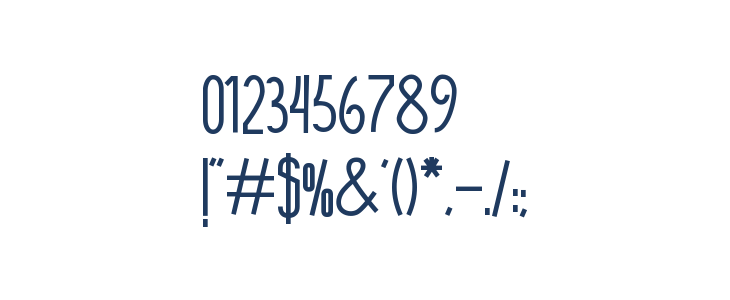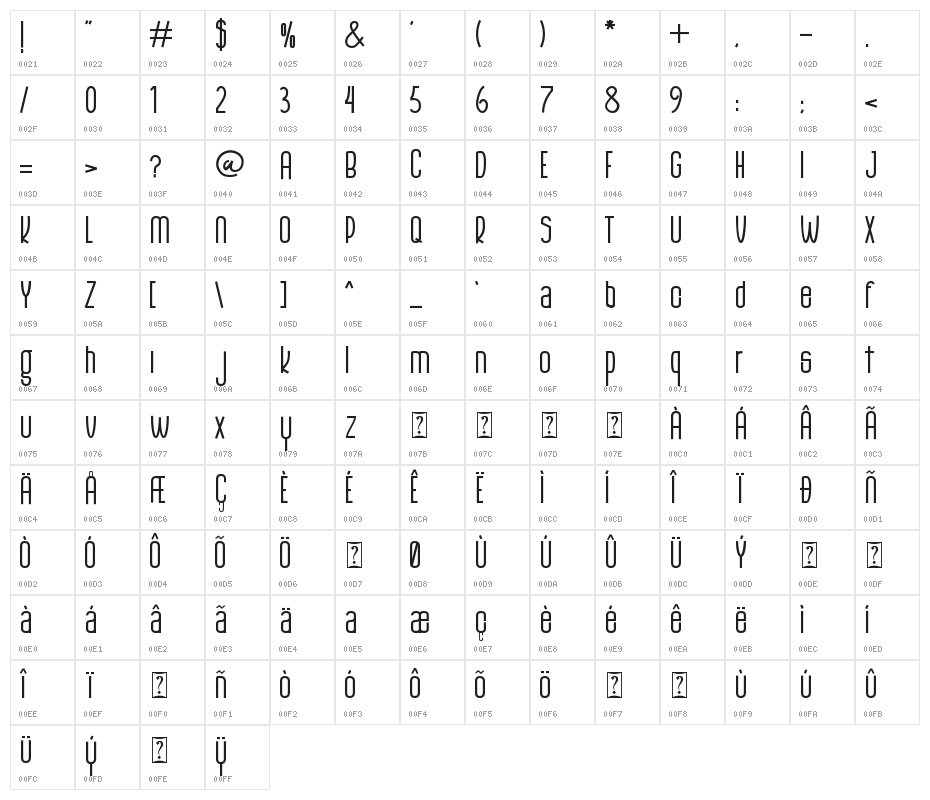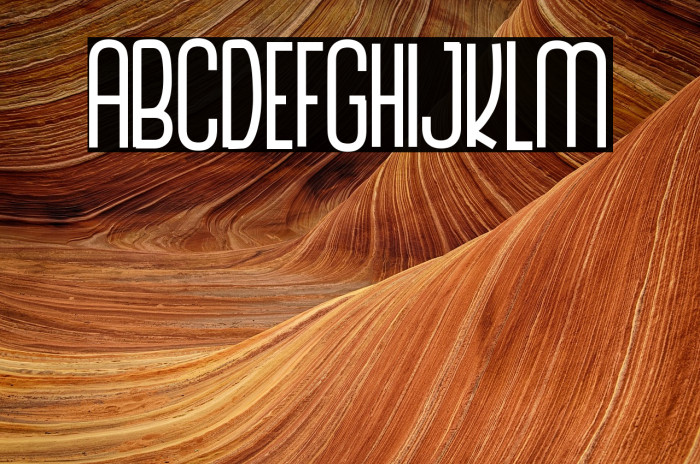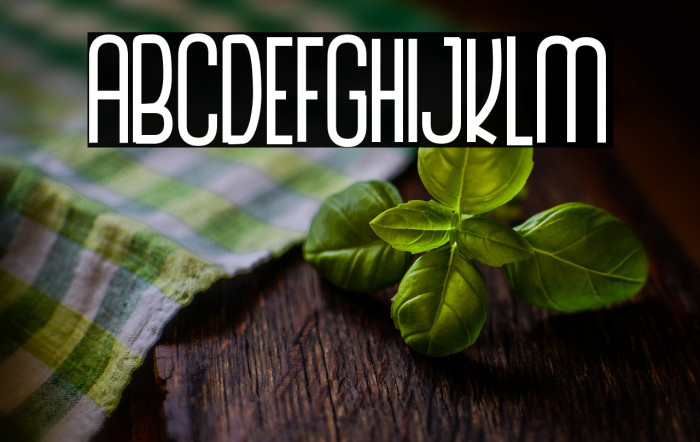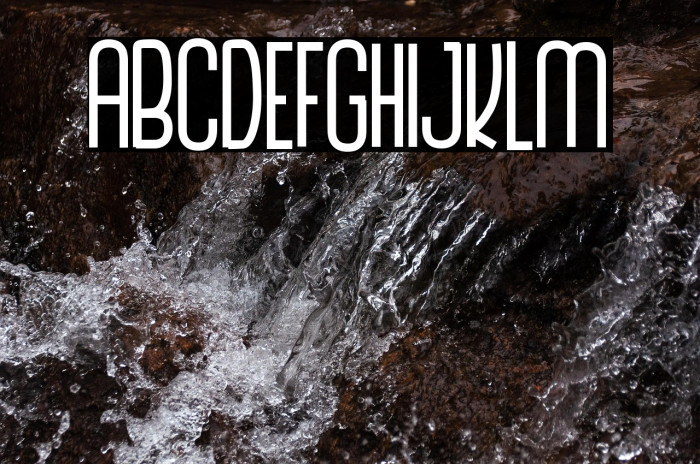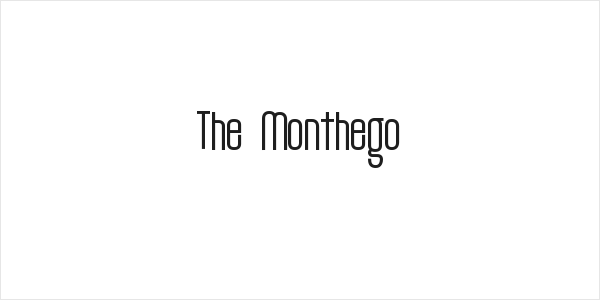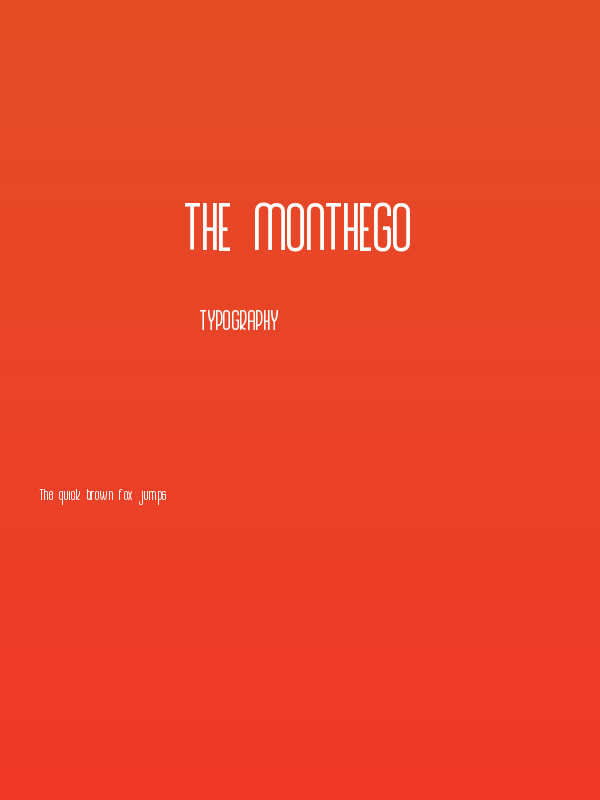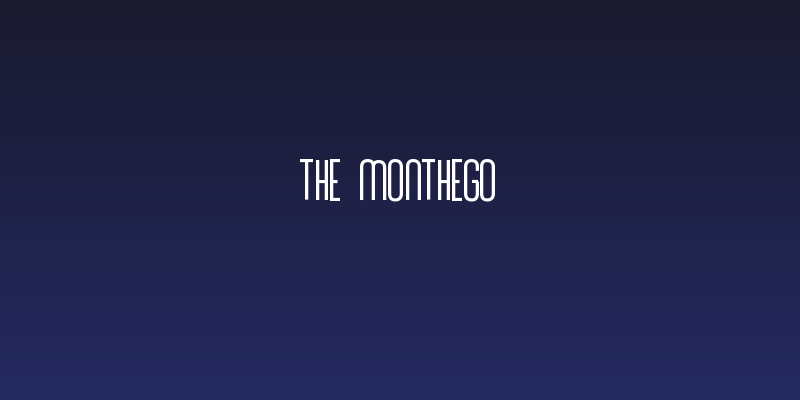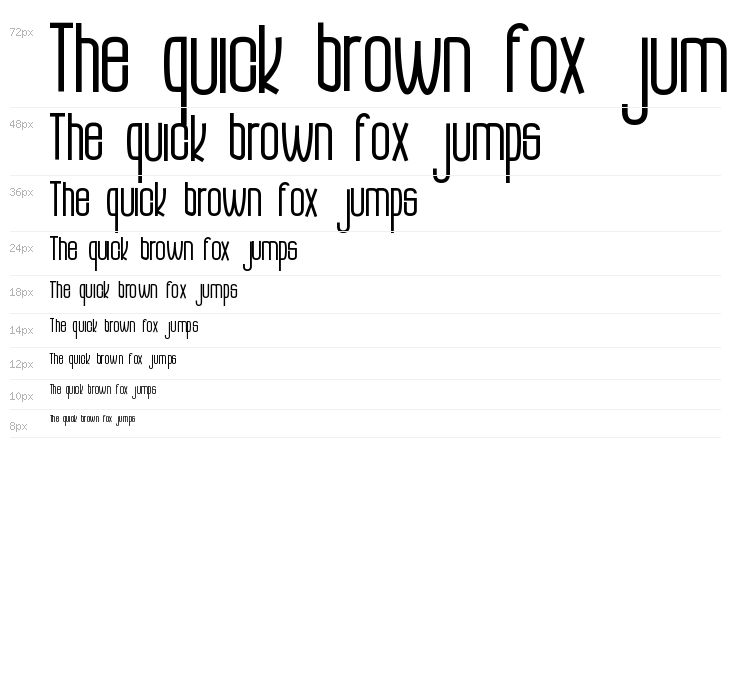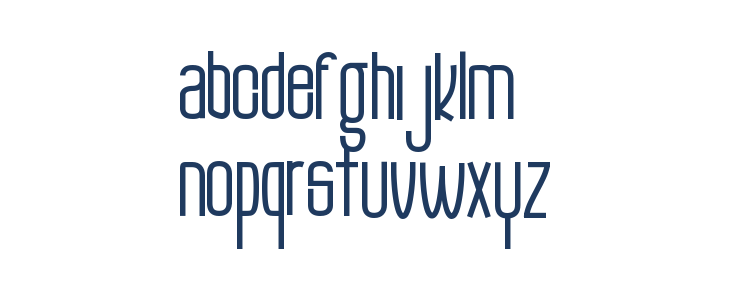
The Monthego Font
The Monthego Description
This font features a modern, elongated design with a distinct geometric structure. The characters are tall and narrow, giving a sleek and sophisticated appearance. The uppercase letters are uniform in height, while the lowercase letters maintain a consistent style with slight variations in height and width. The numerals are clear and easy to read, matching the overall aesthetic of the font. Special characters are designed to complement the letterforms, maintaining the same elongated and narrow style. The overall look is clean and minimalistic, making it suitable for contemporary design projects.
| Proposed Projects | Ideal for branding, advertising, and editorial design where a modern and sophisticated look is desired. |